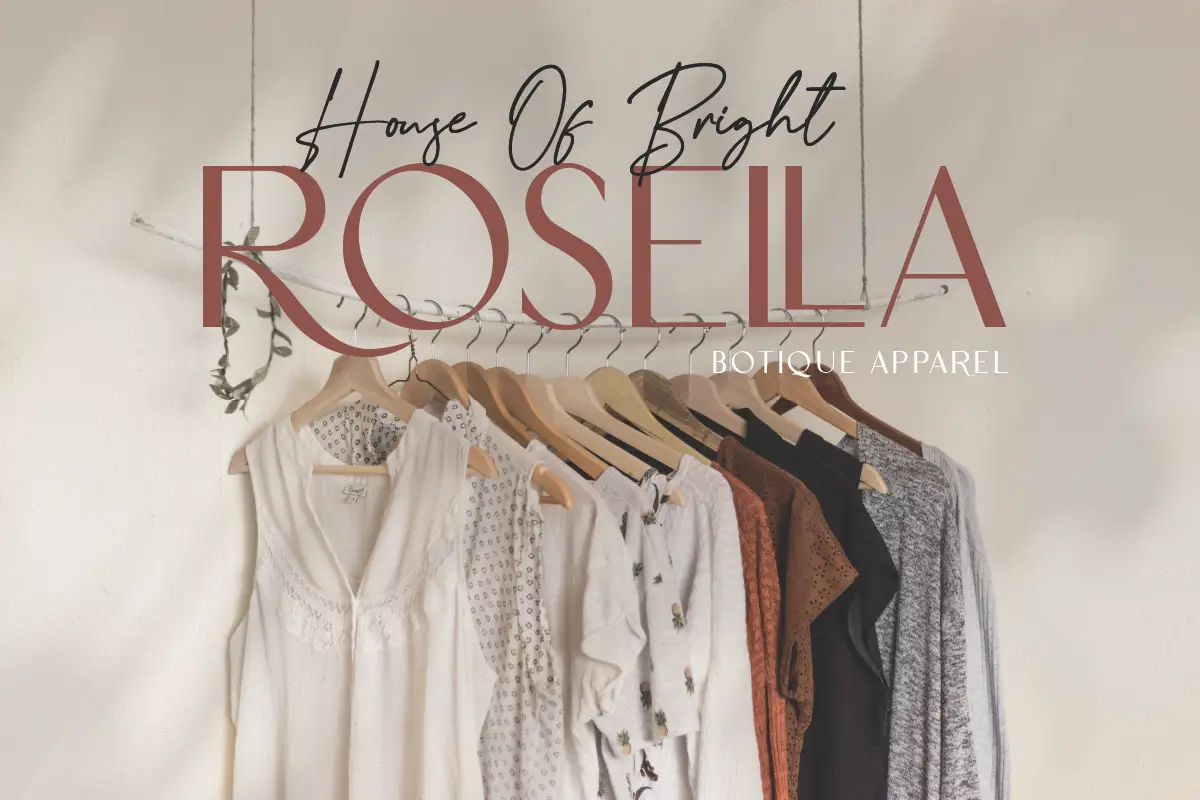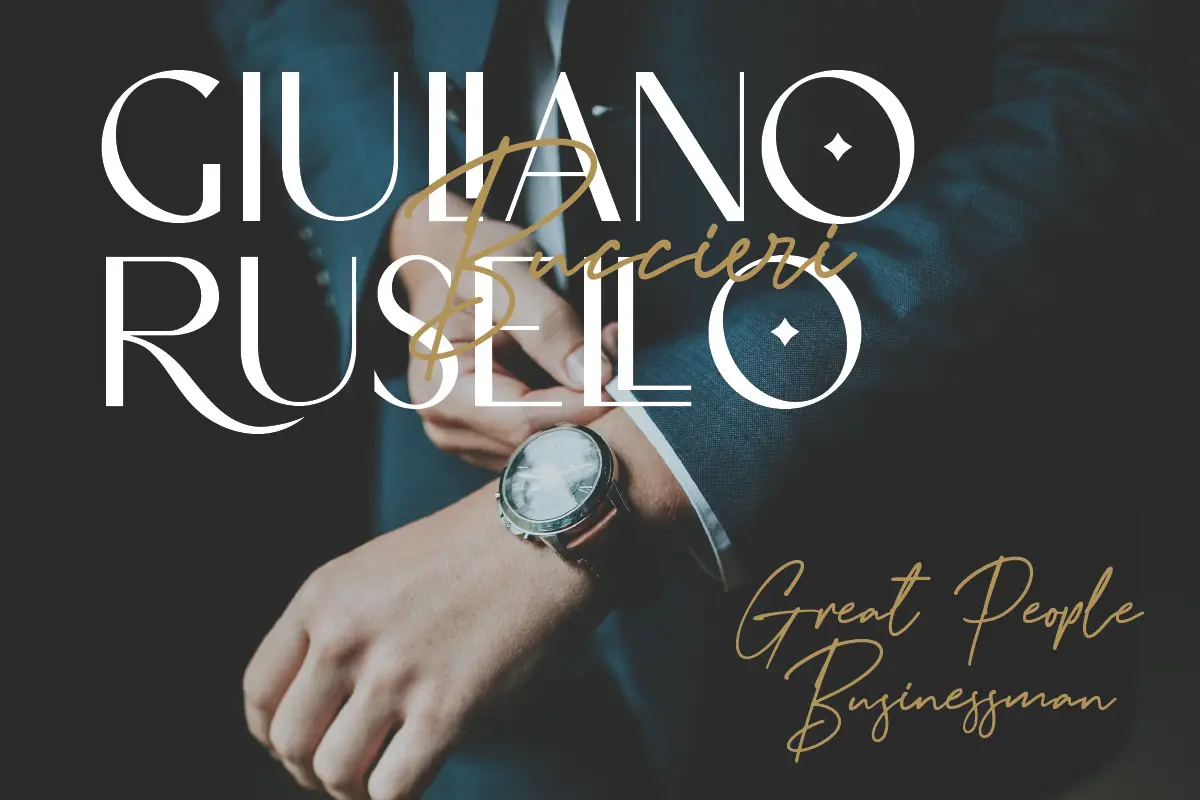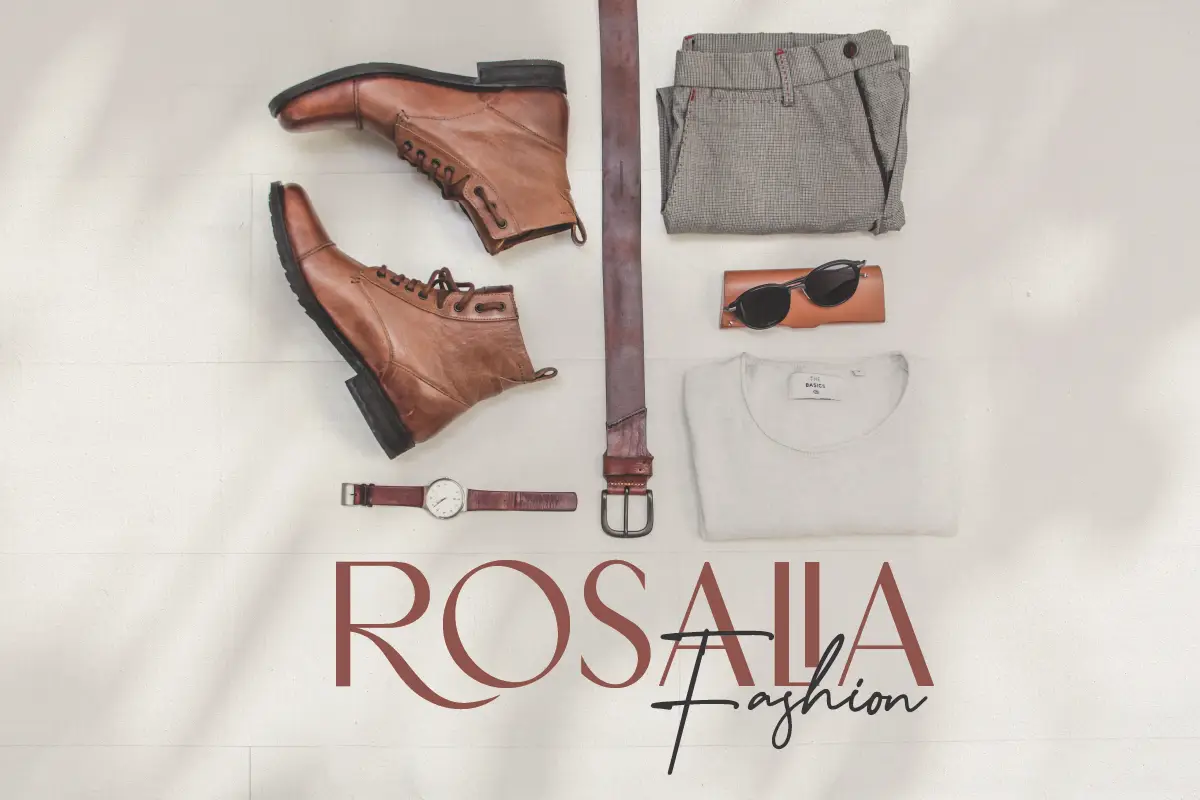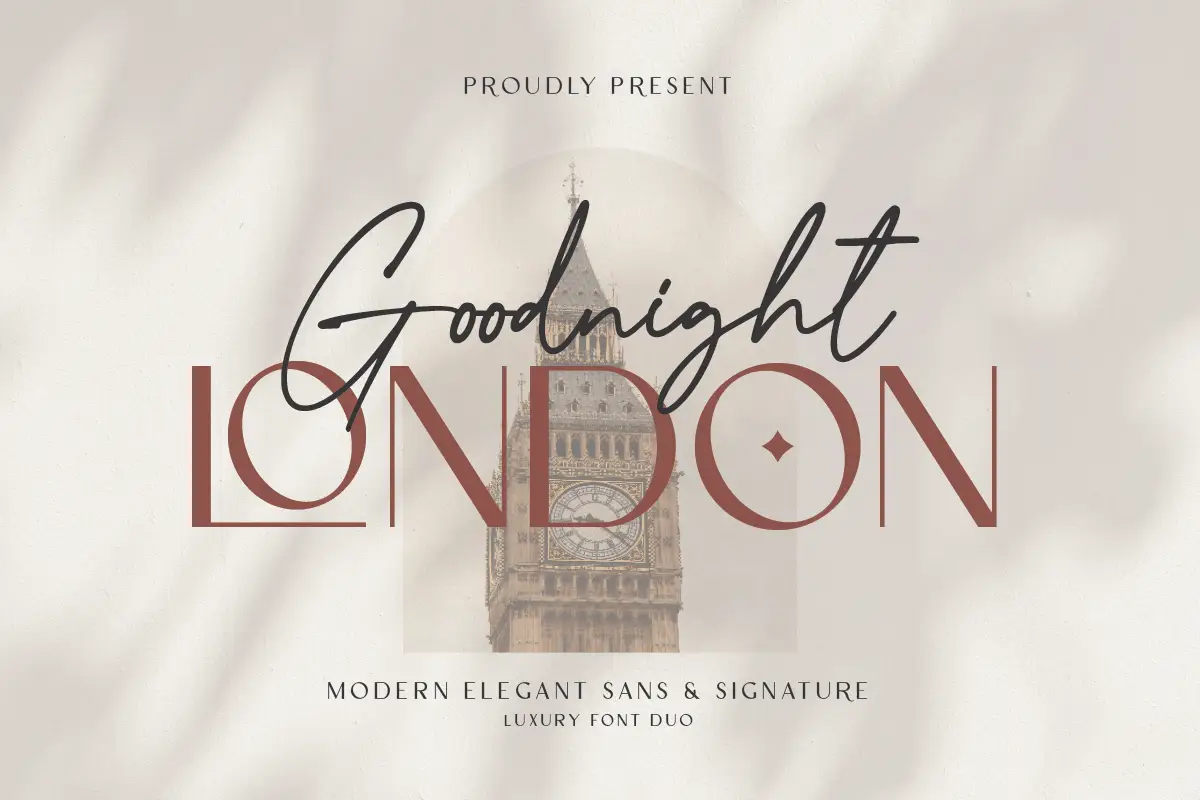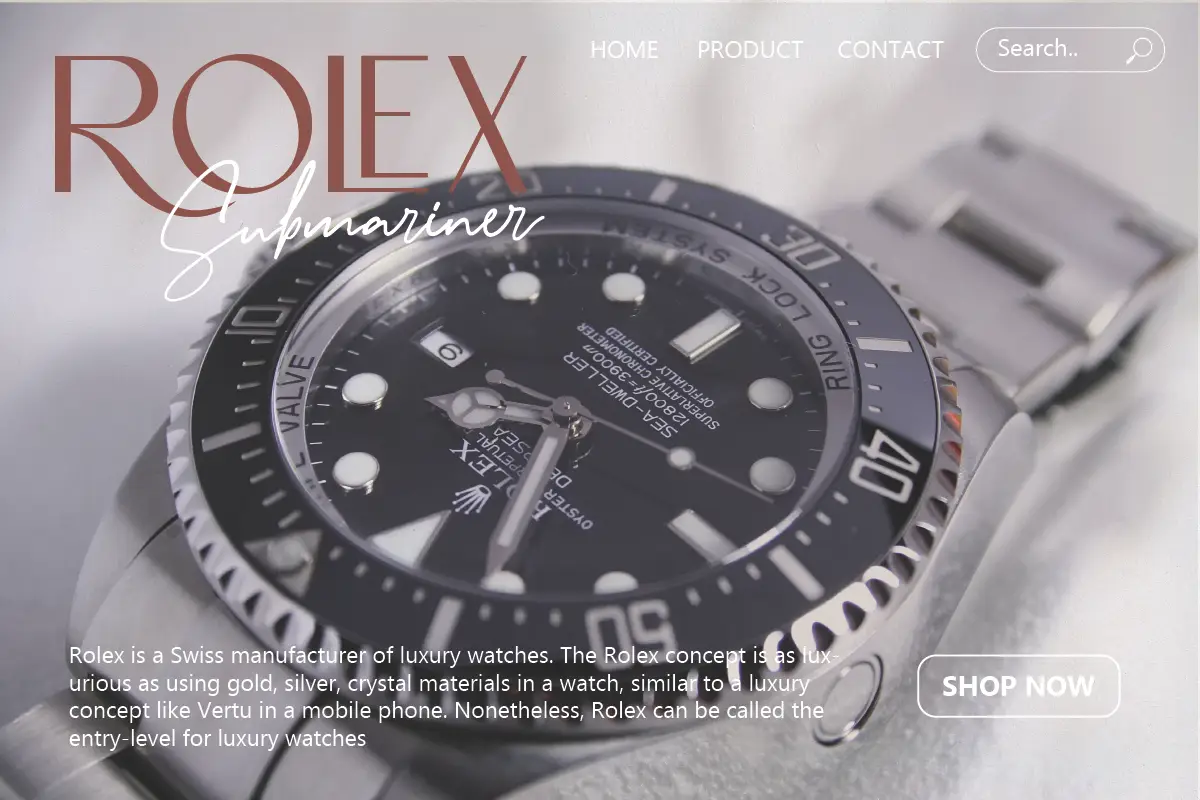
Goodnight London Font Duo
The Goodnight London Font Duo is a charming combination of two beautifully crafted typefaces that brings a touch of elegance to your design projects. This duo includes a script font and a complementary sans-serif font, perfect for a variety of applications.
• Stylish script font with a flowing, handwritten feel
• Clean sans-serif font for a modern contrast
• Uppercase and lowercase letters, numbers, and punctuation
This font duo is ideal for branding, logos, invitations, and social media graphics. Use the script font for headings and the sans-serif for body text to create a harmonious design.